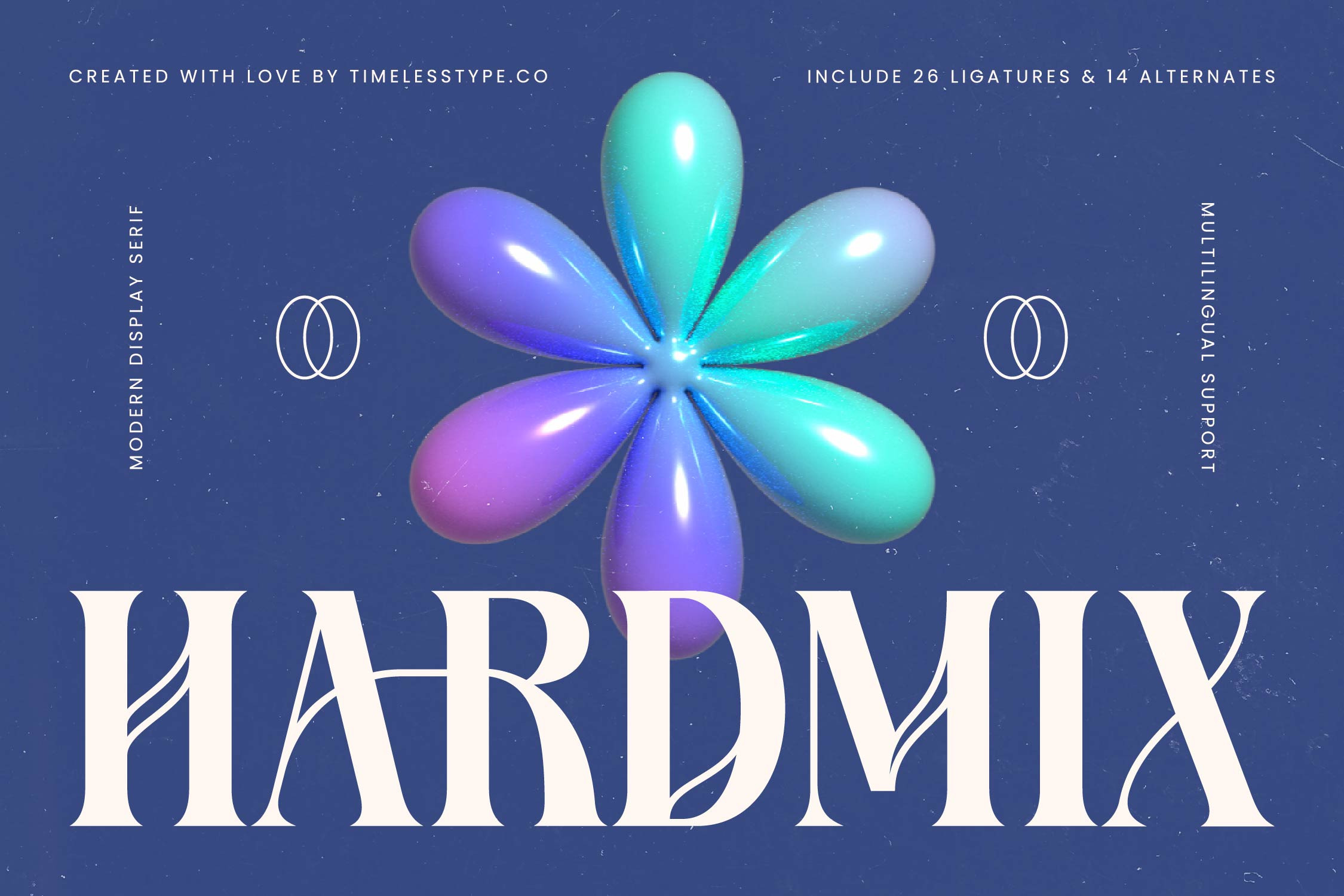
Hardmix Bold Modern Serif Font
Hardmix - Modern Display Serif , from Timelesstype.Co , Hardmix breathes life into every design, offering a bold yet sophisticated dance of curves and sharp edges that commands immediate attention. It is a typeface designed for those who want their message to feel both timeless and ahead of its time.
Inspired by the fluid motion of modern art and the structured elegance of high-fashion editorials, this font captures a unique intersection of organic flow and geometric precision. It evokes the feeling of a late-night gallery opening or a luxury boutique's window display.
This modern serif display is a masterclass in luxury typography, featuring a high-contrast serif design that ensures a strong branding impact. Its editorial font personality makes it the perfect choice for high-end aesthetic projects that require a touch of class and confidence.
Staying ahead of the modern serif trend, this typeface leans into the world of editorial display fonts and character-driven typography. It responds to the current demand for fonts that are not just readable but act as central decorative elements in contemporary visual identities.
From high-impact logo design and comprehensive branding systems to sophisticated editorial layouts and luxurious packaging, this font excels across diverse platforms. It adds a refined touch to wedding invitations and brings a high-concept feel to fashion magazine spreads and digital lookbooks.
The extensive collection of ligatures and alternates allows for endless customization, while full multilingual support and international characters ensure global usability. Whether you utilize the decorative swashes or keep it clean, this font provides a premium experience for every professional designer.